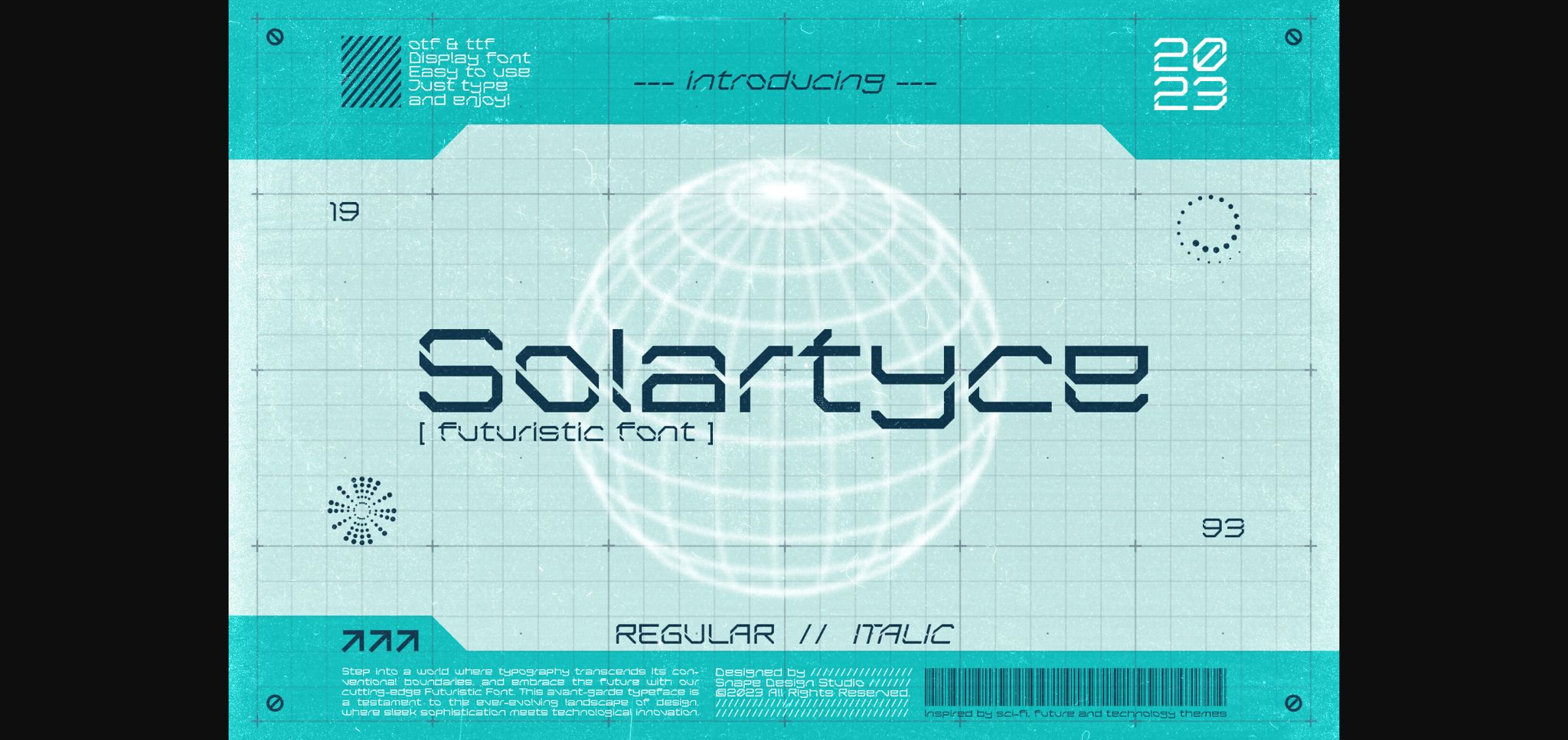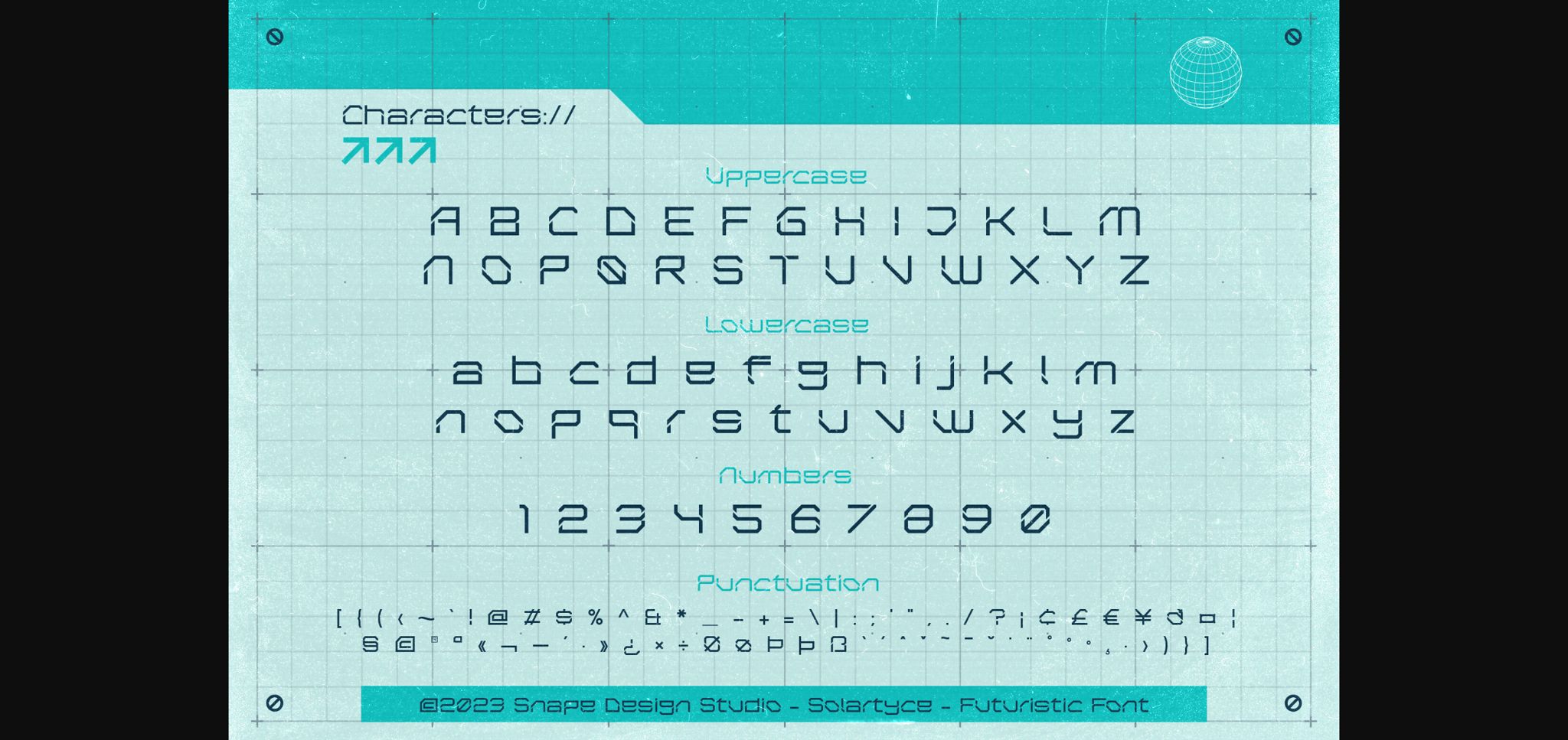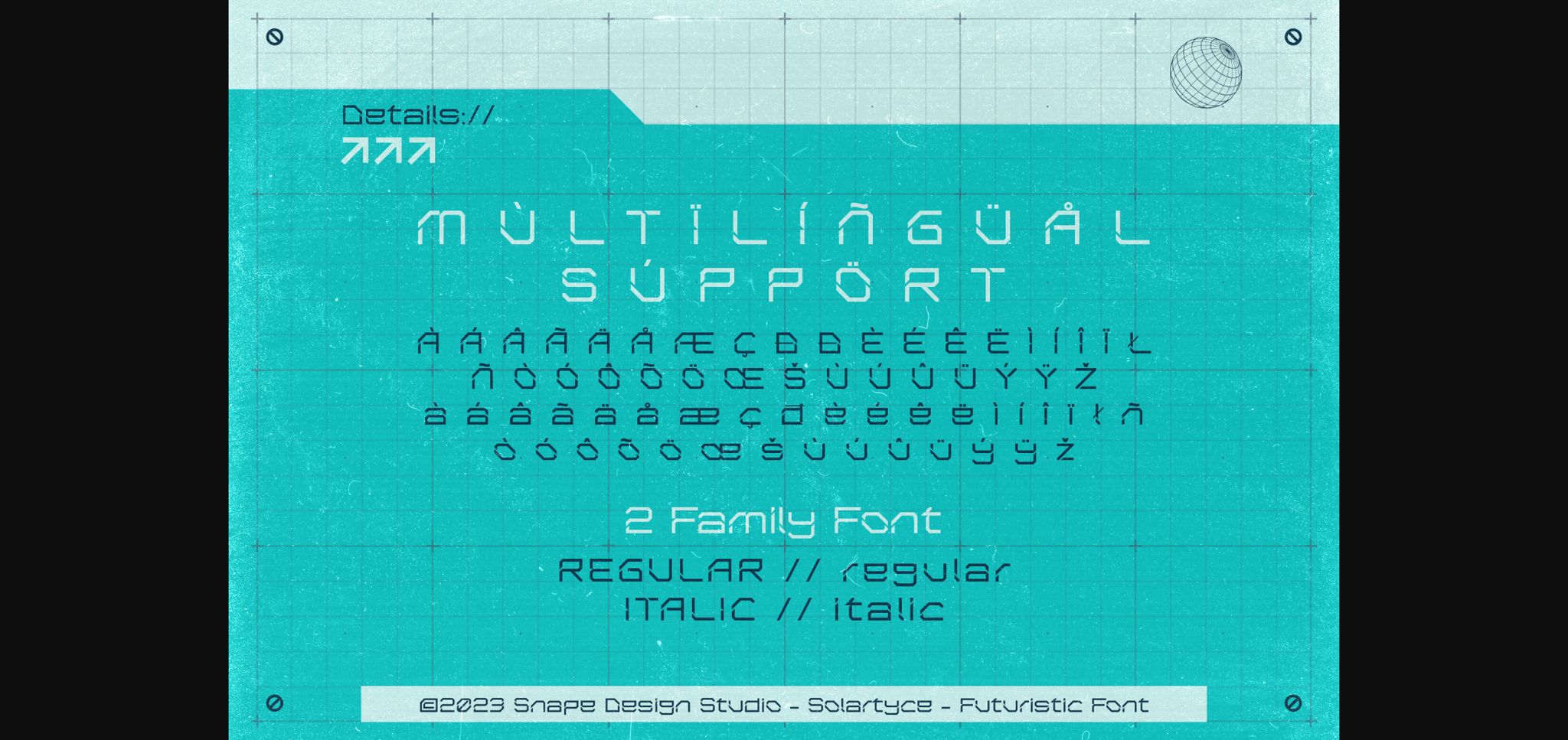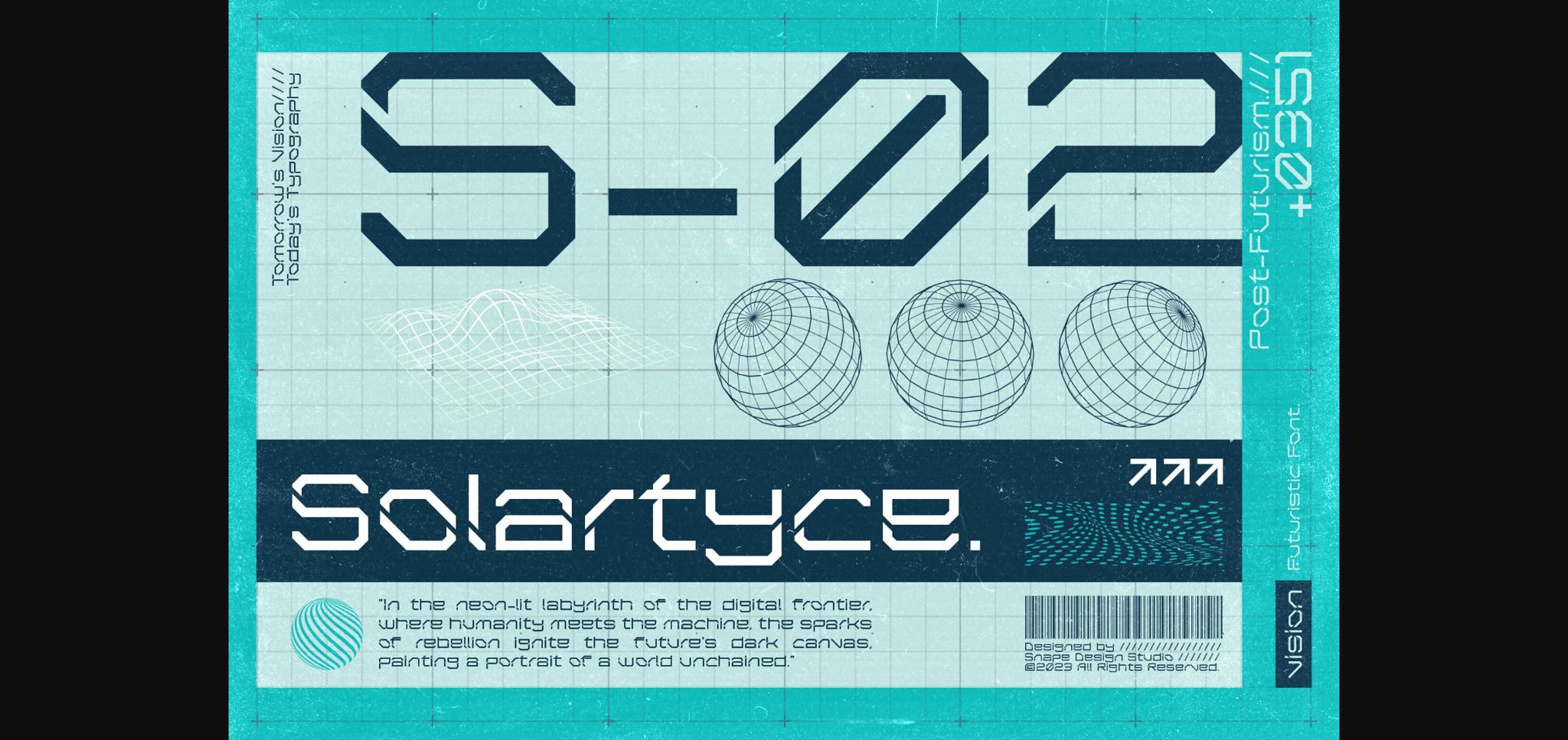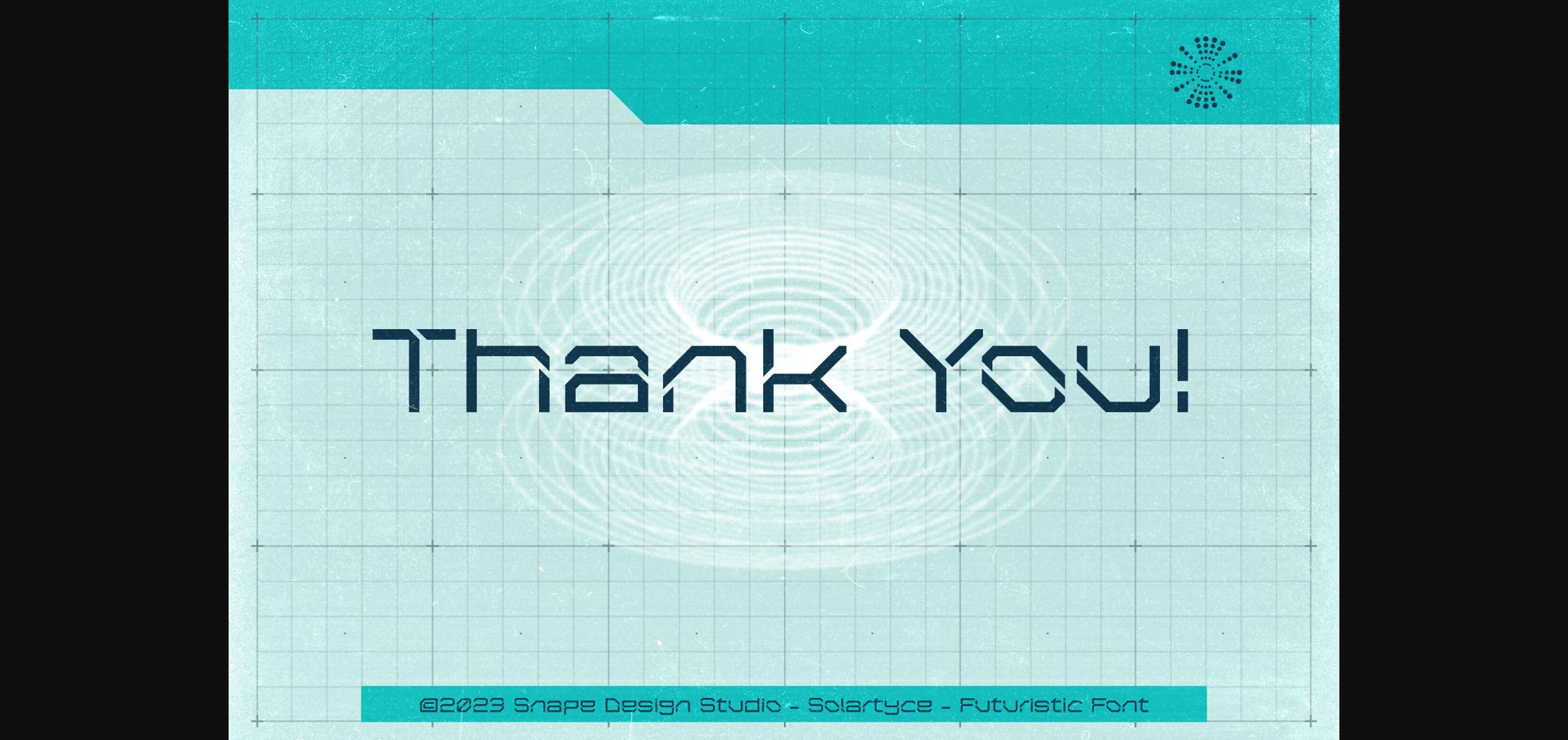
Solartyce Font
About Solartyce Font
Introducing Solartyce, a futuristic sans serif font where innovation meets aesthetics in the realm of typography. This cutting-edge collection of fonts redefines the future of design, offering sleek, dynamic, and visually striking characters that seamlessly blend technology and artistry. Perfect for sci-fi themes, tech branding, or any project that demands a modern edge, these fonts empower creativity with their versatility and user-friendly customization options.